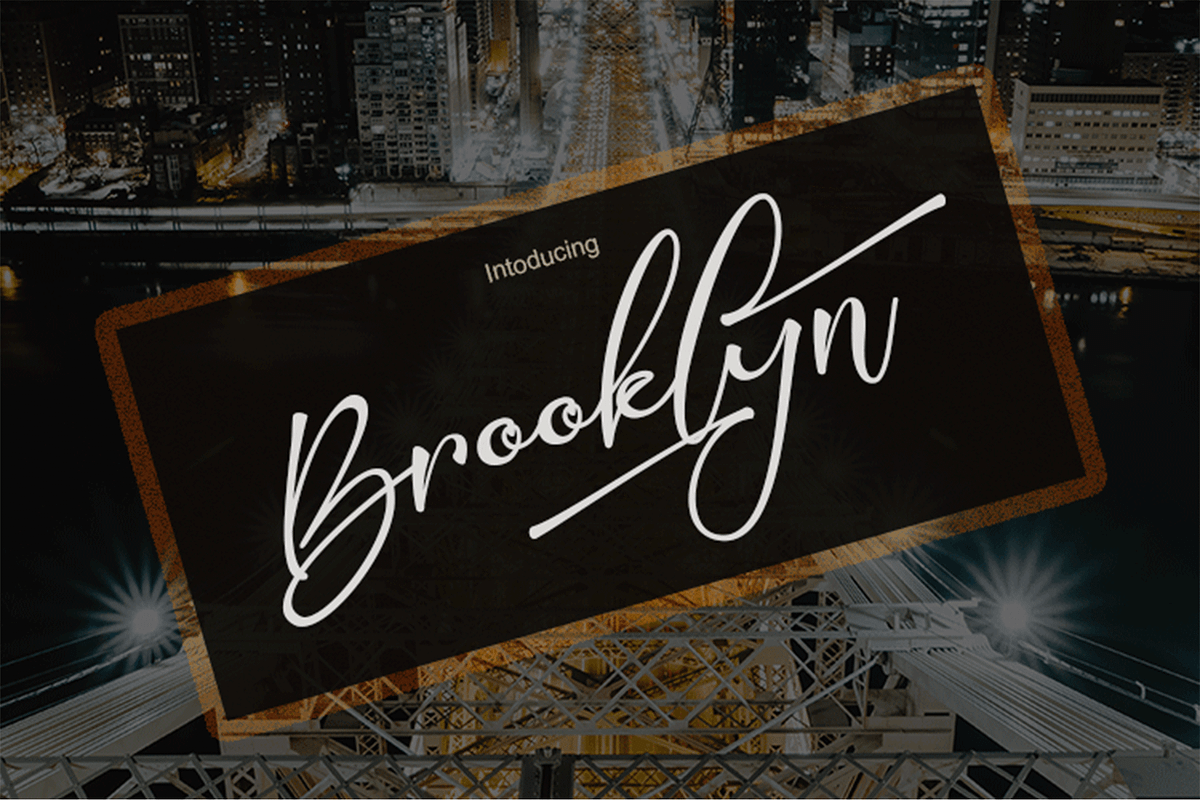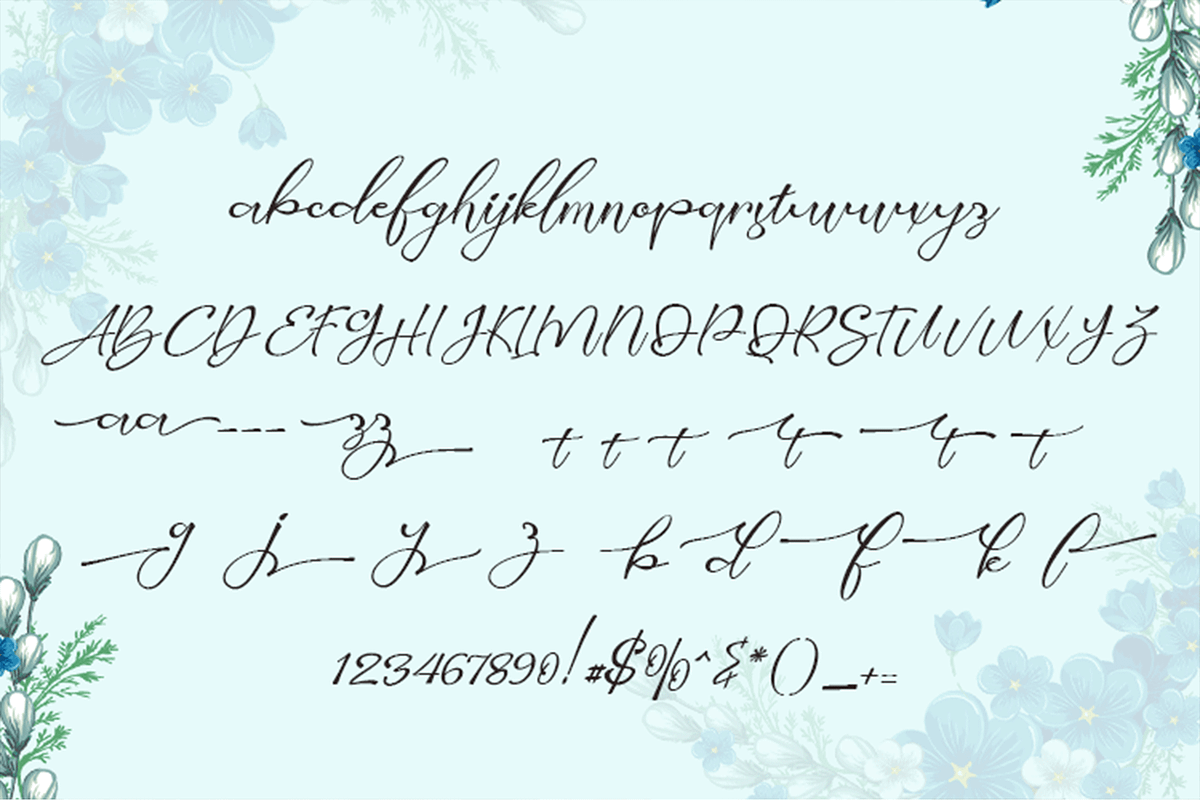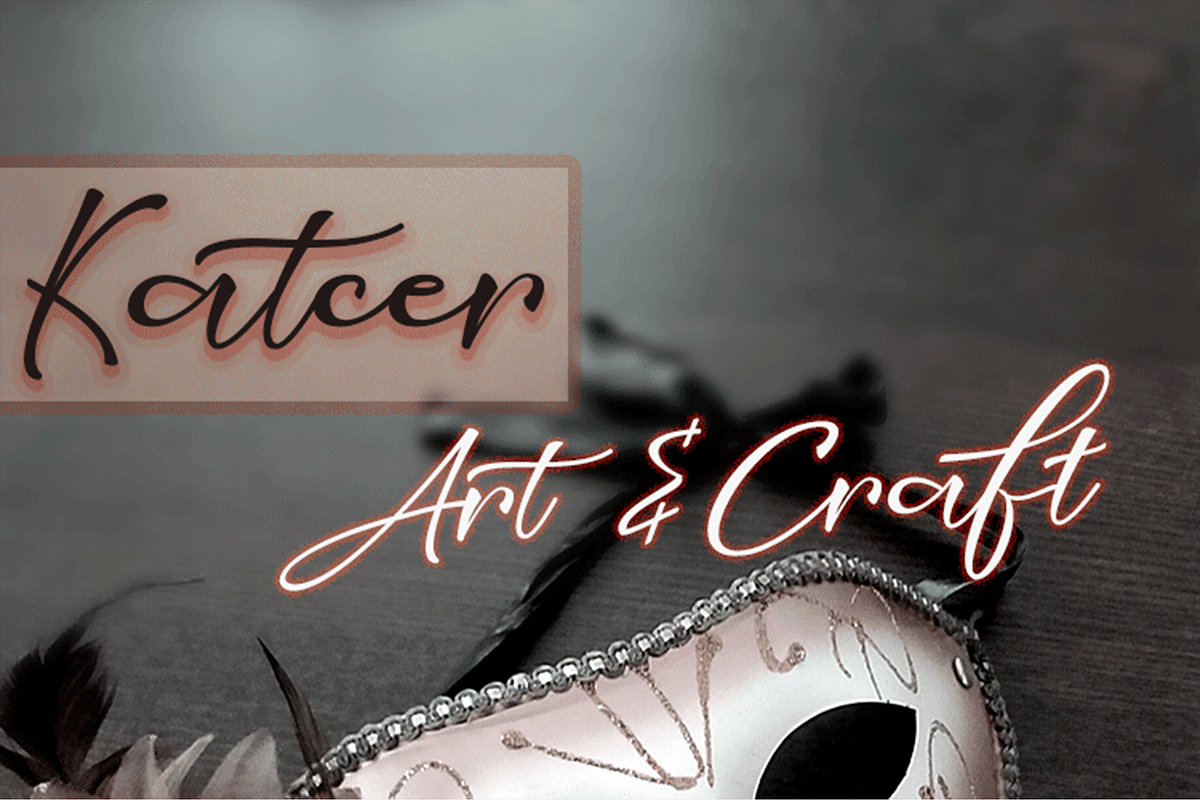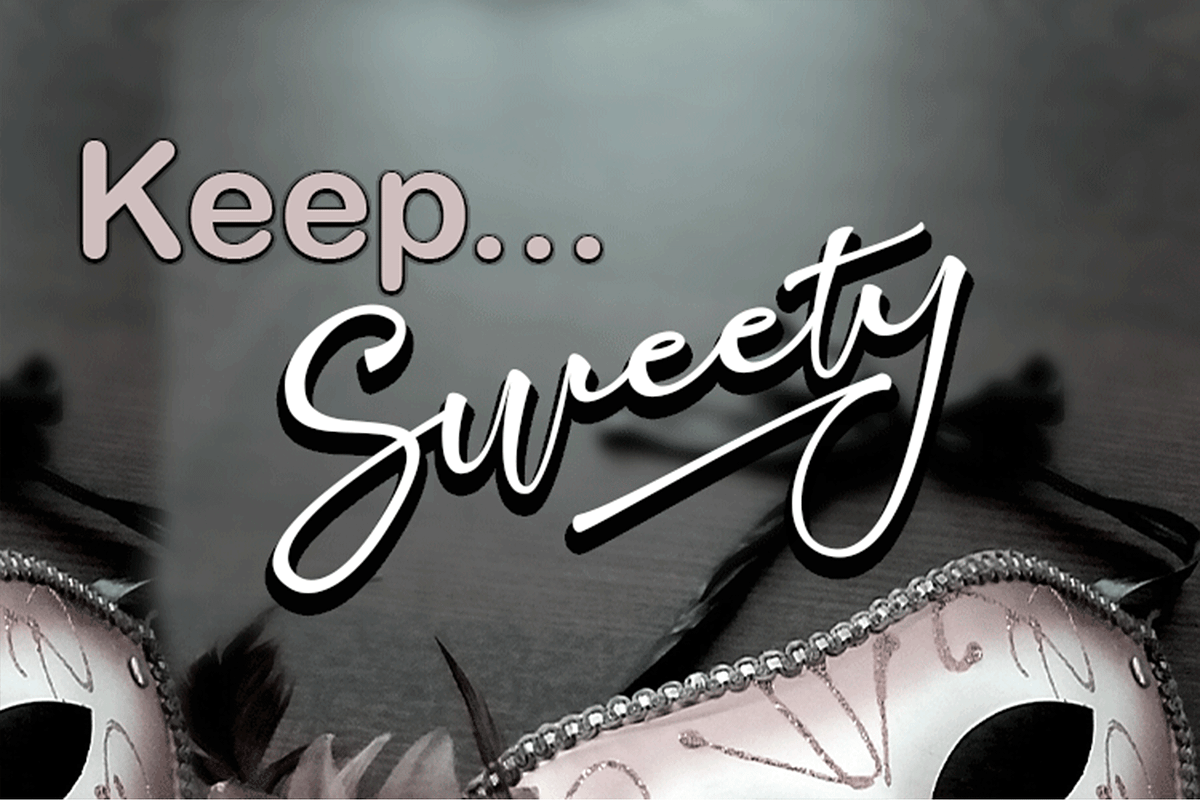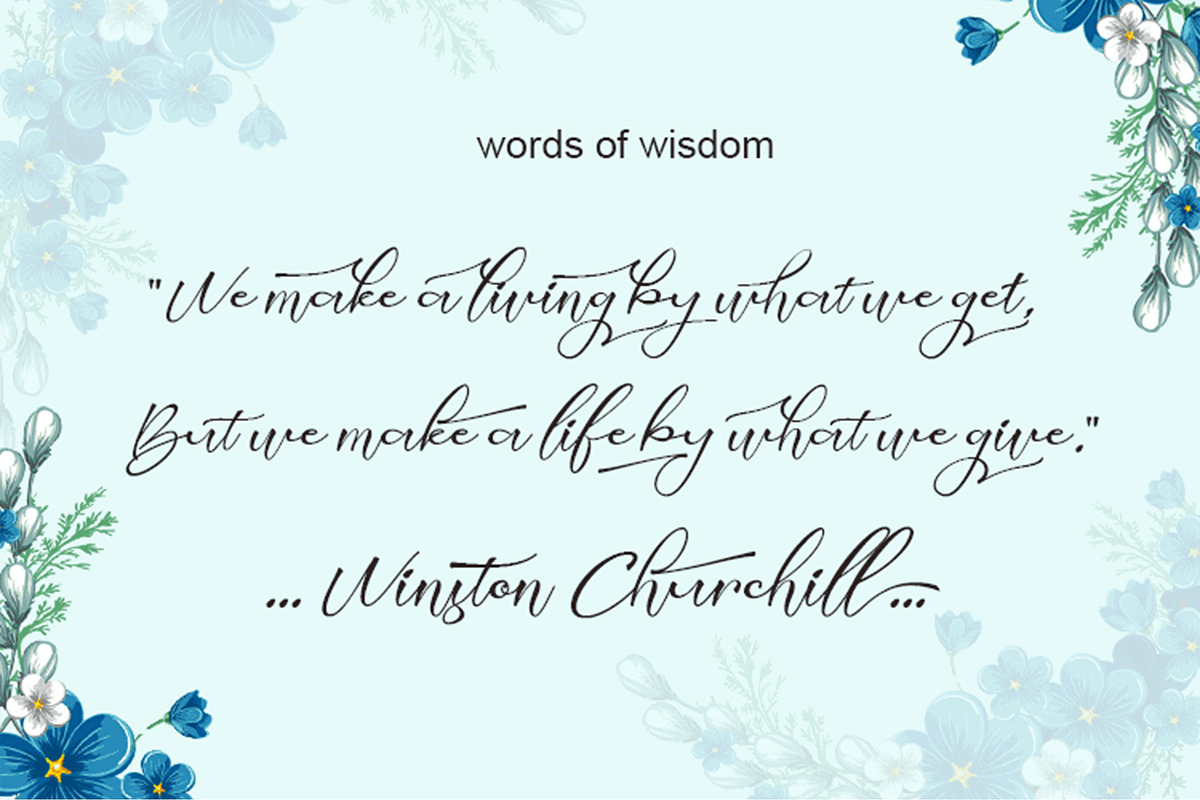
Brooklyn
Brooklyn Font ,,is a beautiful and lovely script font to To make it easier for you to work on projects that suit your needs with many alternative styles, ligatures, swash and multilingual glyphs
Brooklyn can be used for wide ranges of application, such as wedding design,Branding,label,packking, logo, poster, name card, invitations, social media posts, and others.